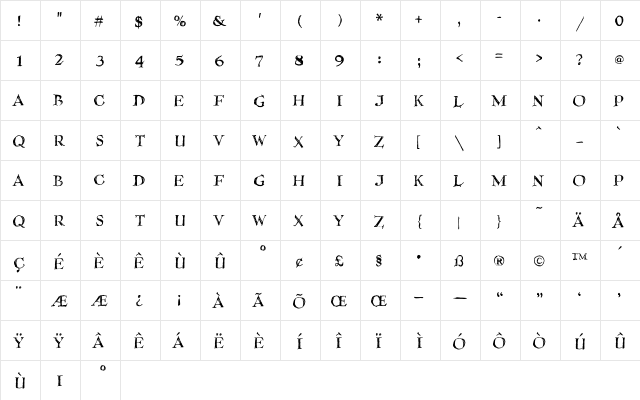
FourScoreTitling Regular
Design Context for FourScoreTitling Typeface
FourScoreTitling takes a measured approach to typography — its balanced proportions and neutral character make it a reliable workhorse for both digital and print work.